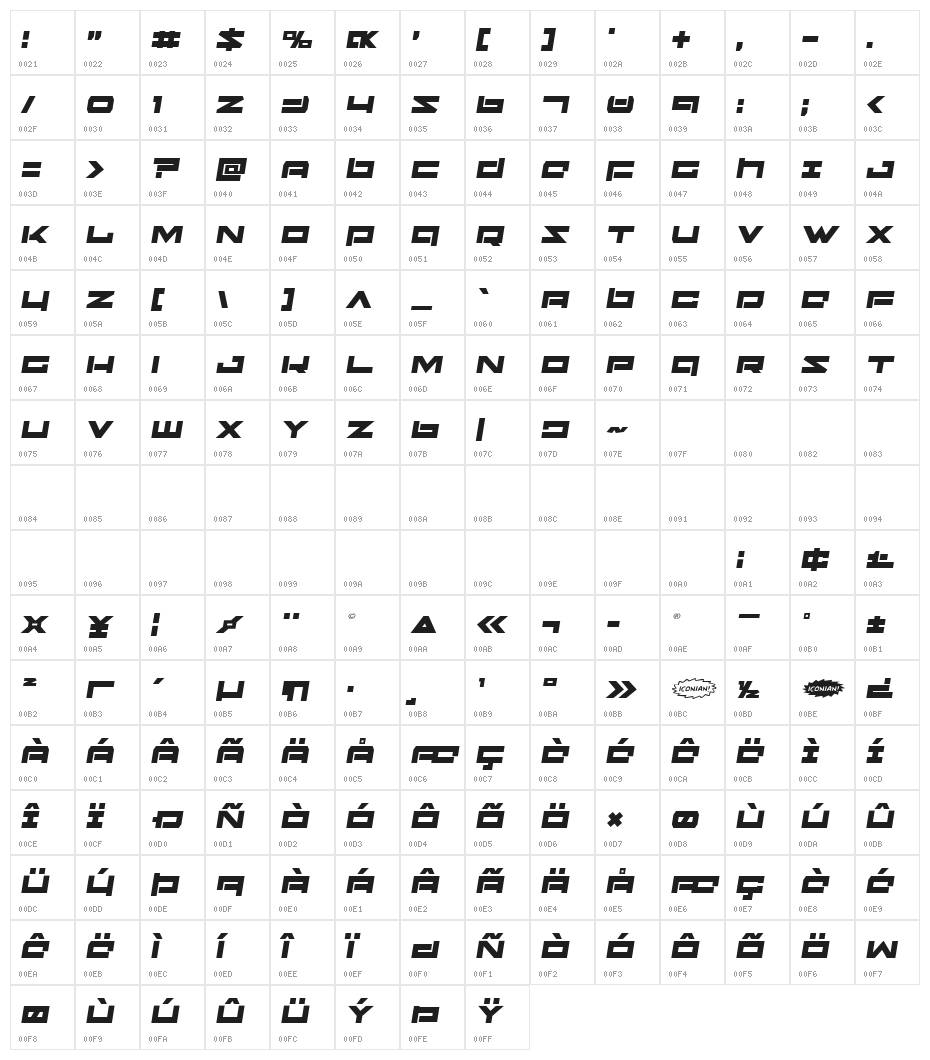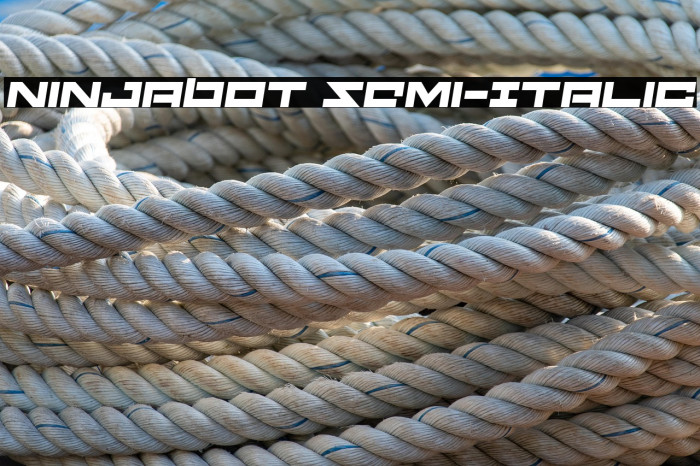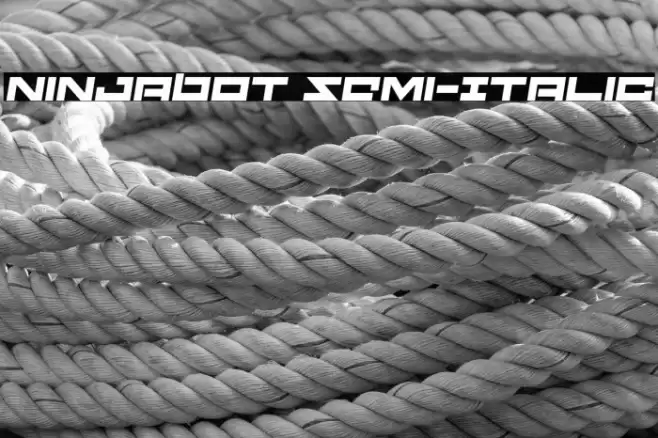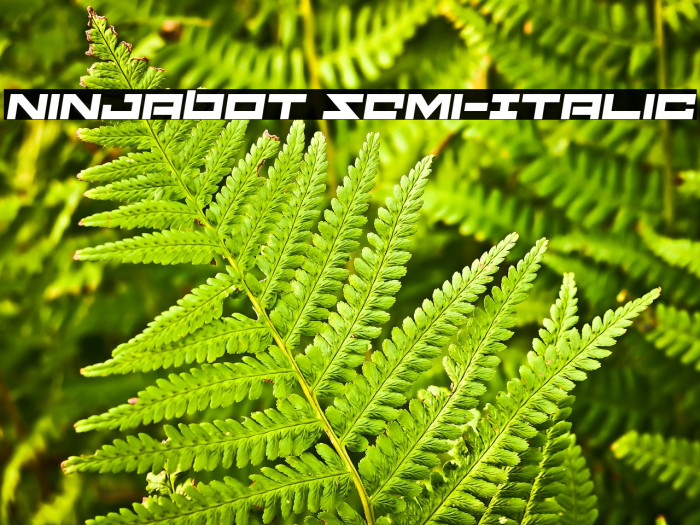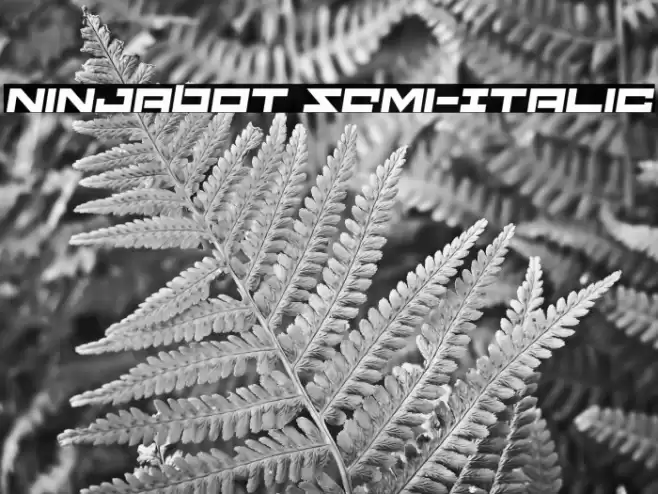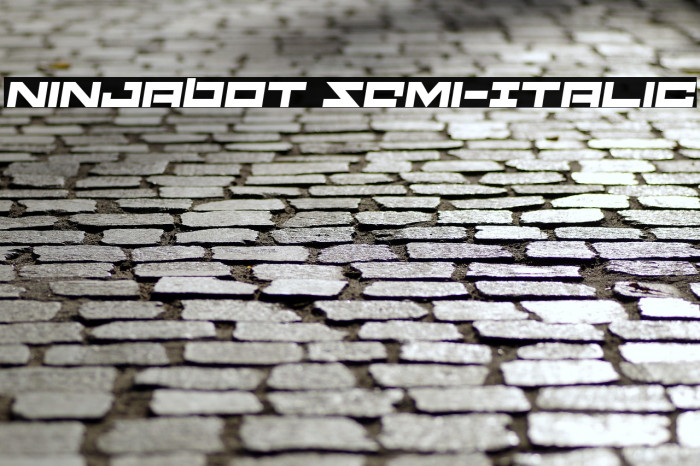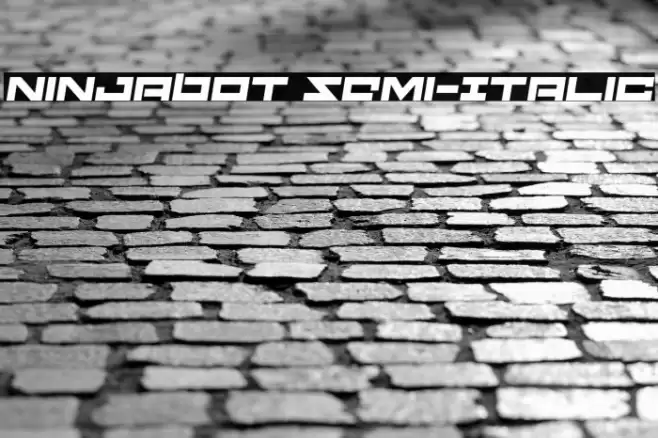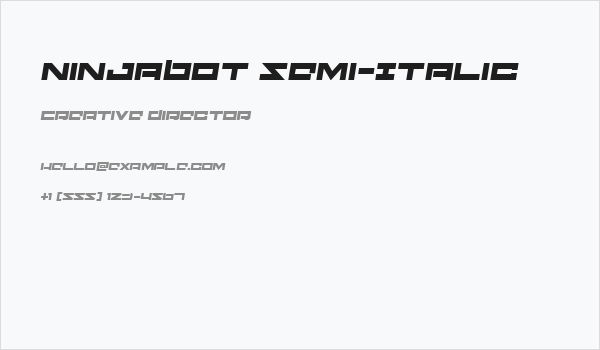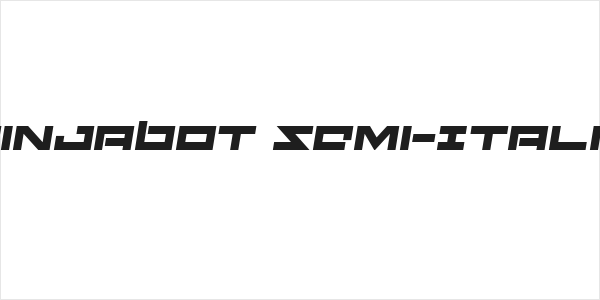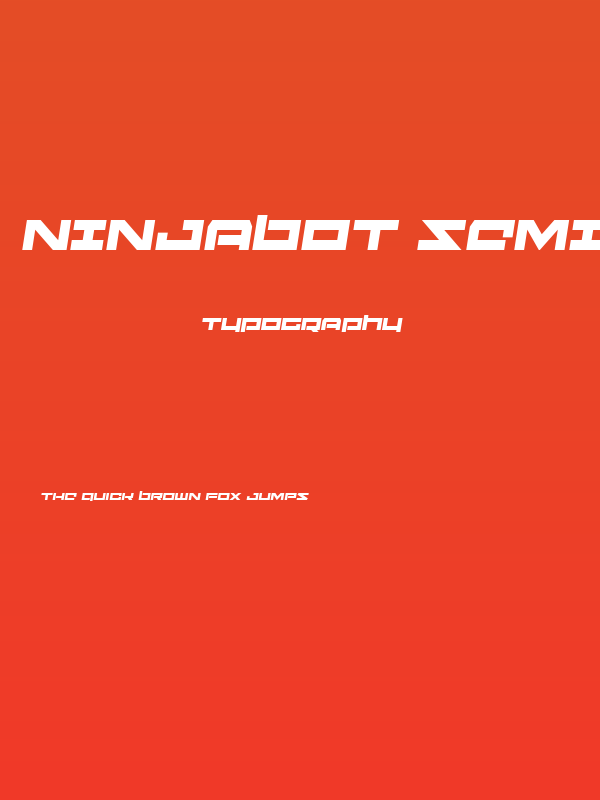
Ninjabot Semi-Italic Font
✎ Futuristic
Ninjabot Semi-Italic Description
This font features a futuristic and angular design, characterized by sharp edges and a bold presence. The letters are slightly italicized, giving a sense of motion and dynamism. The uppercase and lowercase characters maintain a consistent style, with geometric shapes and a uniform thickness throughout. Numbers and special characters follow the same design principles, ensuring a cohesive look. The font's unique style makes it stand out, suitable for projects that require a modern and edgy aesthetic.
| Italic | Yes |
| Overall Style | Futuristic |
| Use Case | Headlines, Logos |
| Proposed Projects | Ideal for video game titles, tech branding, sci-fi posters, and digital interfaces. |